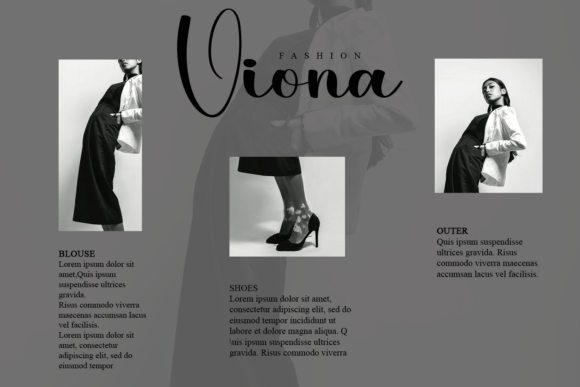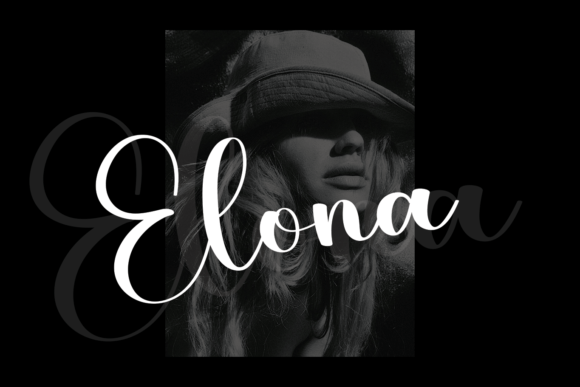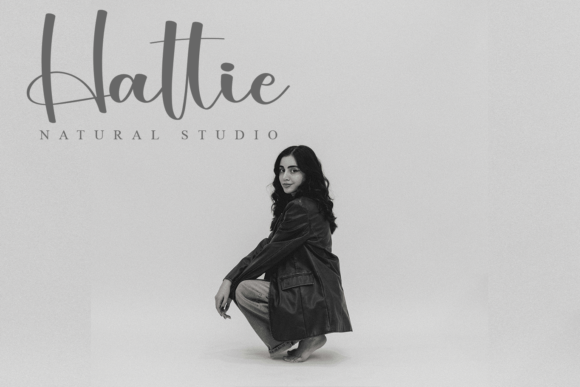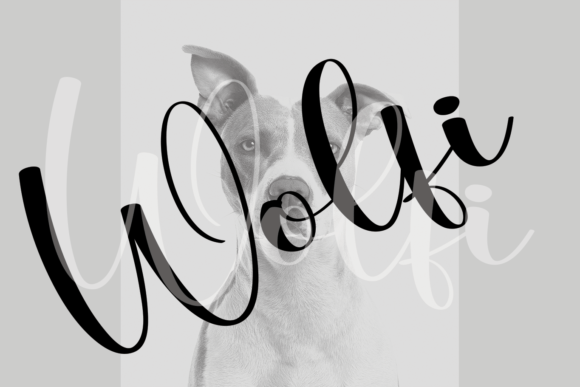
Embracing the Magic of Autumn: Discover the Perfect Font
As the leaves start to change colors and the crisp air sets in, there’s something undeniably magical about the autumn season. It’s the perfect time to get creative, whether you’re planning a cozy dinner party or a romantic wedding. And what better way to capture the essence of this season than with the perfect font?
Enter the Better Autumn Font, a flowing and graceful handwritten font that’s sure to add a touch of elegance to any project. Whether you’re designing wedding invitations, creating beautiful stationery, or simply looking to add some seasonal flair to your social media posts, this font is a must-have. Its chic style and versatility make it a valuable asset for designers, allowing them to create stunning and unique designs that truly stand out.
Better Autumn Font Key Features
- Font Size: The font comes in a single size, 600 glyphs, with each character carefully crafted to ensure legibility and readability.
- Unique Characteristics: The Better Autumn Font features a warm and inviting design, with subtle autumnal themes and motifs woven throughout the characters.
- Font Weight: The font comes in a single weight, but with a range of styles, including Regular, Italic, Bold, and Bold Italic, allowing for a high degree of flexibility and customization.
Designer Review: Better Autumn Font
Overall, I’d say the Better Autumn Font is a solid choice for any project that needs a seasonal twist. The font has a warm and cozy feel that’s perfect for fall-themed designs, invitations, or even advertisements.
- The font’s unique blend of script and serif elements gives it a beautiful, hand-written feel that’s sure to stand out.
- The variety of weights and styles makes it easy to create visually appealing combinations that suit different design needs.
- The font’s kerning is generally well-done, with some clever adjustments that enhance the overall aesthetic.
Limitsations ⚠️
- The font may be a bit too playful for more formal or professional designs, where a more subdued tone is preferred.
- The script elements can sometimes appear a bit too loose or uneven, which may be distracting in certain contexts.
Despite these limitations, I think the Better Autumn Font is a great addition to any designer’s toolkit. Its unique style and versatility make it perfect for a wide range of projects, from holiday cards to restaurant menus.
The Better Autumn Font is ideal for designs that require a warm and cozy feel, such as:
– Autumn-themed invitations and cards
– Seasonal marketing materials
– Food and beverage branding
– Fall-themed social media graphics
To get the most out of the Better Autumn Font, try the following:
– Pair it with warm and earthy colors to enhance its autumnal feel.
– Use it in combination with bold and playful fonts for a more dynamic look.
– Experiment with different font sizes and styles to create visual interest.